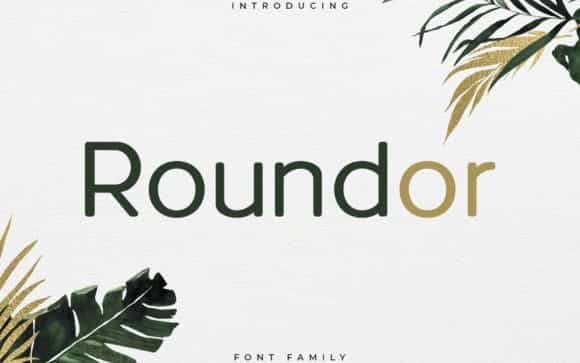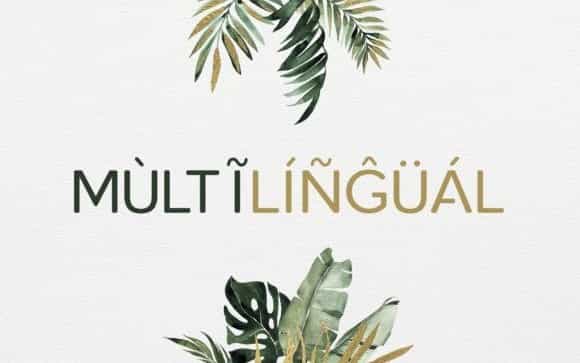
Roundor is a contemporary and relaxed sans serif font that has an unmistakable clean look. This font will be the most suitable for logos, branding, packaging design and many other areas.